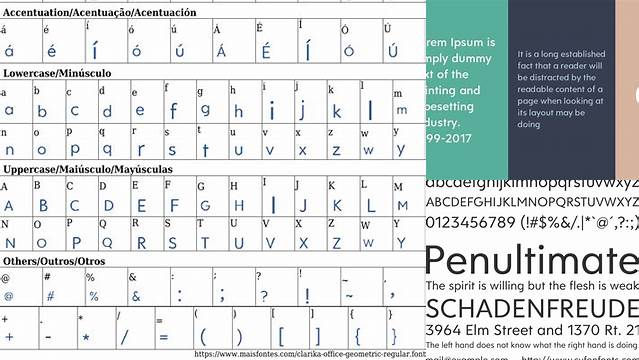
Clarika Geometric Regular Font: Free Download & Design Guide
Clarika Geometric Regular Font is a sleek and modern typeface that's perfect for a variety of design projects. Whether you're working on a website, creating marketing materials, or designing a logo, this font offers a clean and professional look. And the best part? You can download it for free! In this comprehensive guide, we'll explore everything you need to know about the Clarika Geometric Regular Font, from its design characteristics and uses to where and how to download it. So, get ready to elevate your designs with this fantastic font!
Clarika Geometric Regular Font: Design and Characteristics
Guys, let's dive into the nitty-gritty of the Clarika Geometric Regular Font. This font is all about clean lines, sharp angles, and a distinctly modern feel. It's a sans-serif typeface, which means it doesn't have those little strokes (serifs) at the end of the letters. This gives it a minimalist and contemporary aesthetic that's super popular in today's design landscape. The "regular" in its name refers to the weight or thickness of the font. In this case, it's a standard weight, which makes it incredibly versatile for both headings and body text. One of the key characteristics is its geometric construction. You'll notice that the letters are often built using basic geometric shapes like circles, squares, and triangles. This gives the font a sense of balance and order, making it visually appealing and easy to read. The kerning, or spacing between letters, is usually well-handled in Clarika Geometric Regular Font, which further enhances readability. This is crucial for ensuring that your text looks polished and professional, especially in larger blocks of text.
The overall impression of the font is one of simplicity and sophistication. It’s not overly decorative or fussy; instead, it lets the content shine. This makes it an excellent choice for projects where clarity and legibility are paramount. Think of it as the perfect background player, supporting your message without stealing the show. Its neutral yet impactful style makes it a go-to choice for a wide range of applications. Designers often appreciate its adaptability. It can be used in both print and digital media without losing its visual impact. The font's consistent design across all characters ensures a cohesive and professional look. This attention to detail is what sets it apart from more generic fonts. Moreover, Clarika Geometric Regular Font typically includes a full set of characters, including uppercase and lowercase letters, numbers, and punctuation marks. This comprehensive character set allows you to use the font for any type of content, from short headlines to long-form articles. The font's clean lines and consistent weight give it a modern appeal that transcends trends.
Using Clarika Geometric Regular Font in Your Designs
Alright, let's talk about how you can put the Clarika Geometric Regular Font to work. Its versatility makes it a great choice for a bunch of different projects. Firstly, it’s fantastic for website headers and navigation menus. The clean, uncluttered look is perfect for creating a modern and user-friendly interface. Think about how a well-chosen font can make your website look so much more polished. It's also great for body text, especially when you need a font that’s easy on the eyes and doesn’t distract from the content. The regular weight makes it ideal for comfortable reading, whether you're writing a blog post or a detailed article. Clarika Geometric Regular Font excels in print media. From posters and brochures to business cards and flyers, this font will make your materials look sharp and professional. The geometric nature of the font also works well in branding and logo design.
Consider using it to create a modern and memorable brand identity. It's a great way to convey a sense of professionalism and innovation. If you're creating social media graphics, Clarika Geometric Regular Font can add a touch of elegance. It's perfect for creating stylish text overlays on images or crafting eye-catching headlines. If you need a font for infographics, it's a great choice, thanks to its readability and modern aesthetic. It's a great option to make data and complex information look attractive and accessible. The font’s minimalist design pairs well with visual elements, ensuring the information is clear and easy to understand. The font's simplicity and elegance make it a reliable choice for any design task. The font has a wide range of applications, which makes it an indispensable tool for designers of all skill levels. By incorporating Clarika Geometric Regular Font into your work, you can instantly elevate the visual appeal and effectiveness of your designs. The font offers a balance of style and functionality.
Clarika Geometric Regular Font in Branding: How to Make it Work
Let's explore how Clarika Geometric Regular Font can elevate your brand. Using the right font can significantly impact how your brand is perceived. It's not just about making text readable; it's about conveying a certain message or aesthetic. Clarika Geometric Regular Font, with its clean lines and modern feel, is a great choice if you want to create a brand identity that feels professional, trustworthy, and contemporary. This font works great for a brand that wants to be seen as innovative and forward-thinking. If you're designing a logo using Clarika Geometric Regular Font, keep it simple. The font itself is quite strong, so you don’t need to overcomplicate the design. Opt for a clean, uncluttered logo that highlights the font’s inherent elegance and readability.